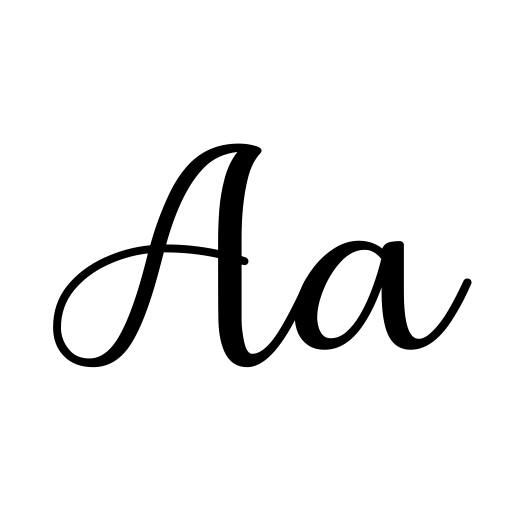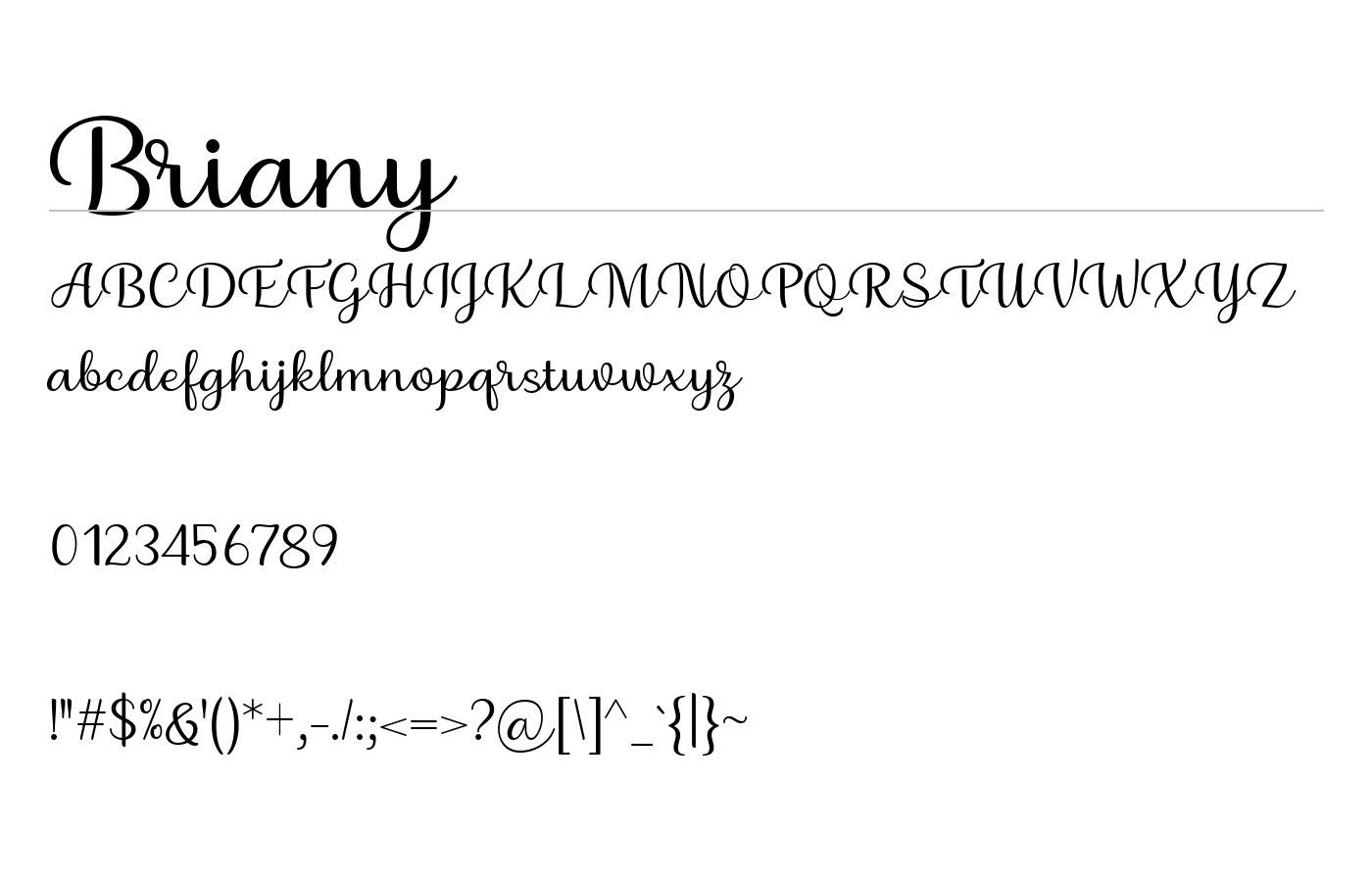
Briany is an elegant script font featuring smooth, flowing letterforms with a delicate and refined touch. Its light weight and moderate contrast give it a graceful, inviting feel, making it ideal for stylish branding, wedding invitations, or sophisticated editorial projects where a personal yet polished look is desired. The font's balanced curves and clear readability also make it suitable for decorative headings and logos that aim for a warm, classy impression.
Briany Font
About Briany Font
| Designer | Andrian Dehasta; Situjuh Nazara |